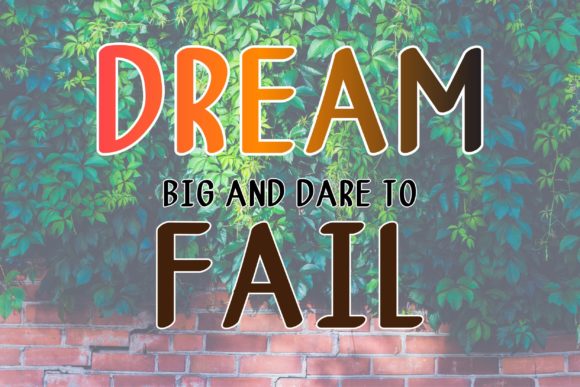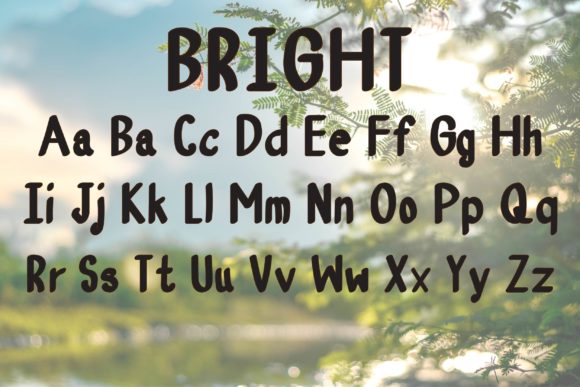
Bright Font
About Bright Font
Bright is not just a font; it’s a delightful blend of simplicity and cleanliness, adding a touch of brightness and beauty to any project. Its handwritten charm makes it a versatile choice for a wide range of applications, from blog posts and logos to branding, advertisements, invitations, greeting cards, planners, photo albums, decorations, and beyond.
This font brings a fresh and vibrant look to your designs, injecting a sense of personality and warmth. Whether you’re crafting engaging blog posts or creating a memorable logo, Bright’s unique style adds a distinct flair that captivates attention.
Its versatility shines through in various contexts, making it the perfect companion for your creative endeavors. Imagine the impact it can have on your branding, elevating your identity and leaving a lasting impression on your audience.
Picture incorporating Bright into your ads, where its clean yet charming aesthetic draws in viewers effortlessly. The font’s handwritten quality lends a personal touch to invitations and greeting cards, making them stand out and creating a lasting memory for recipients.
Planning an event or organizing your schedule? Bright brings a touch of joy to planners, making each page a delight to peruse. Even photo albums and decorations benefit from this font’s cheerful demeanor, enhancing the overall visual experience.
In essence, Bright isn’t just a font choice; it’s a design element that elevates your creative projects to new heights. Its bright and beautiful look transforms ordinary content into something extraordinary, making every piece it graces a true work of art.